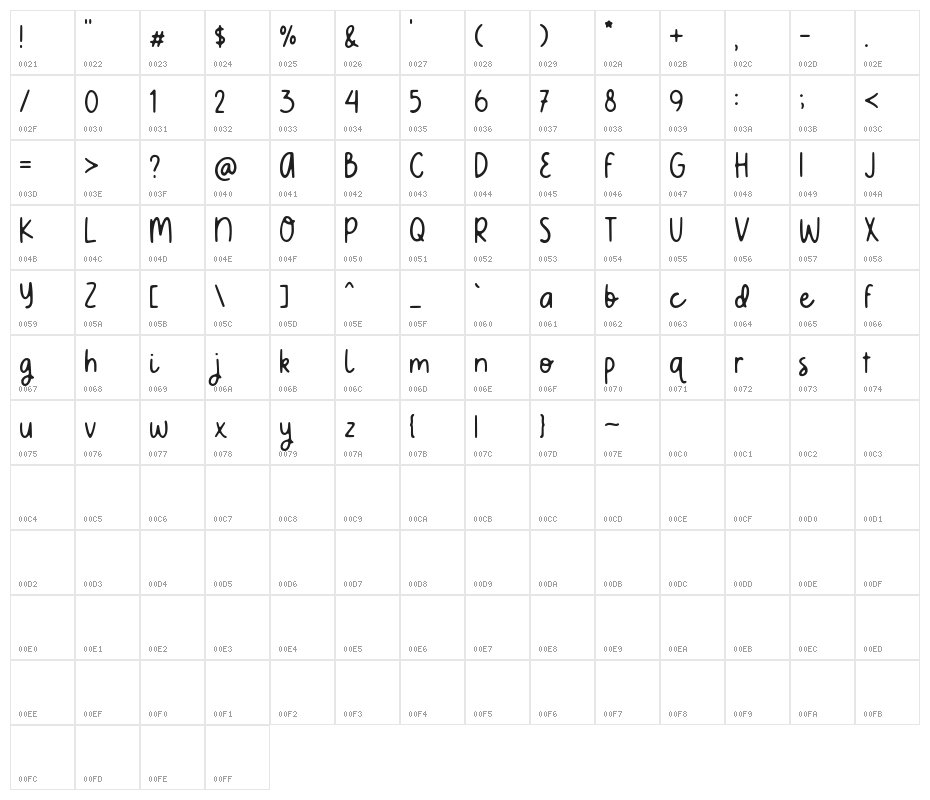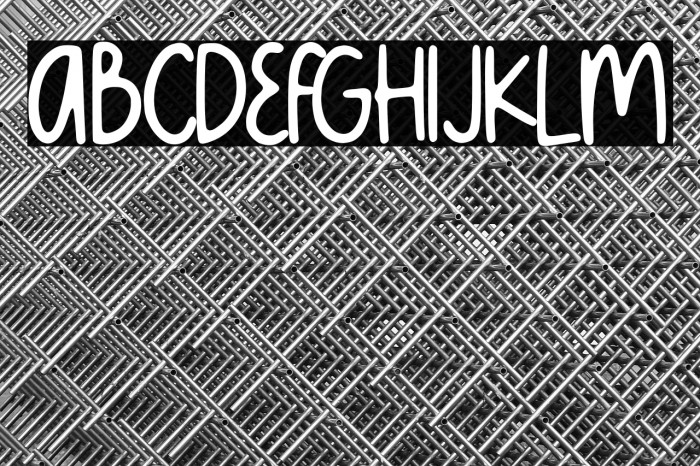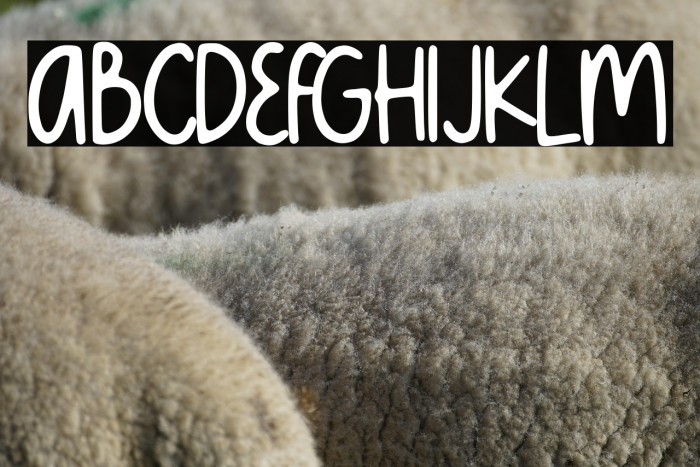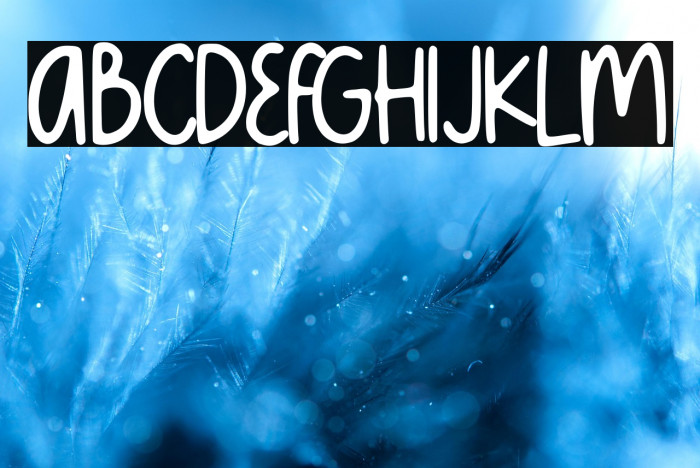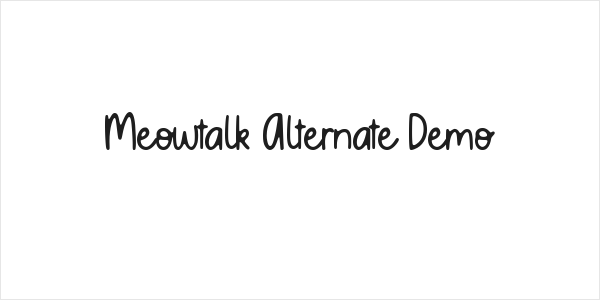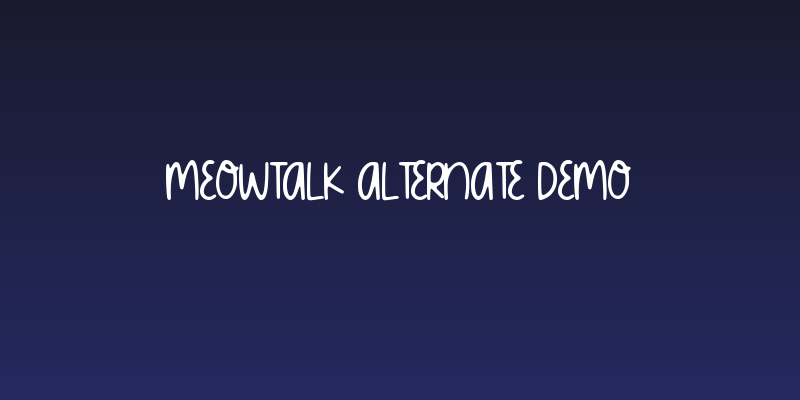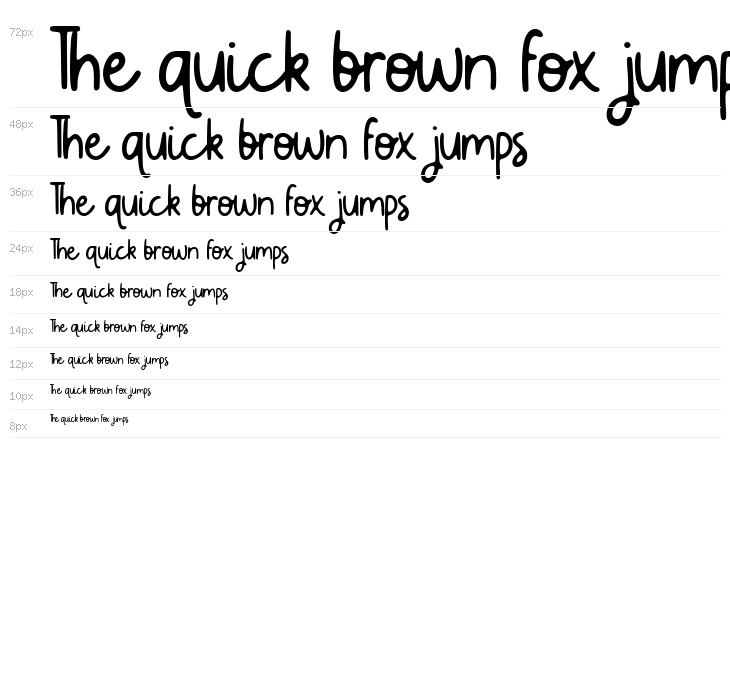
Meowtalk Alternate Demo Font
Meowtalk Alternate Demo Description
This playful and whimsical font features a handwritten style with smooth, rounded edges and a casual, friendly appearance. The letters are slightly irregular, giving it a personal and approachable feel. The uppercase and lowercase characters maintain a consistent flow, while the numerals and special characters complement the overall style. The font's informal nature makes it suitable for creative projects that require a touch of personality and warmth. Its legibility and charm make it a great choice for designs aimed at a younger audience or for projects that want to convey a sense of fun and creativity.
| Use Case | Headlines, Logos, Informal text |
| Proposed Projects | Children's books, greeting cards, playful branding, social media graphics, and informal invitations. |